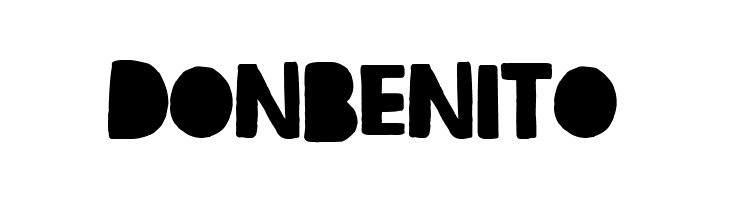
( Fonts by John Vargas Beltrán )
A playful, bold font with a hand-drawn, friendly appearance.
A bold, playful font with a hand-drawn, irregular style.